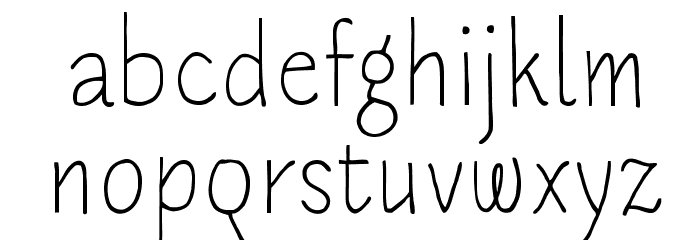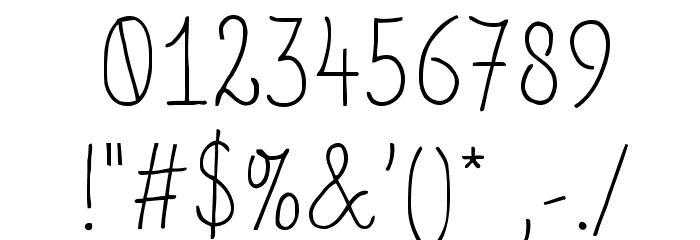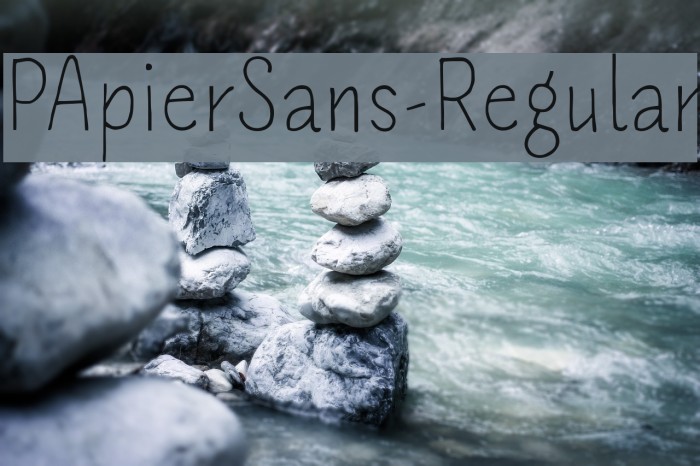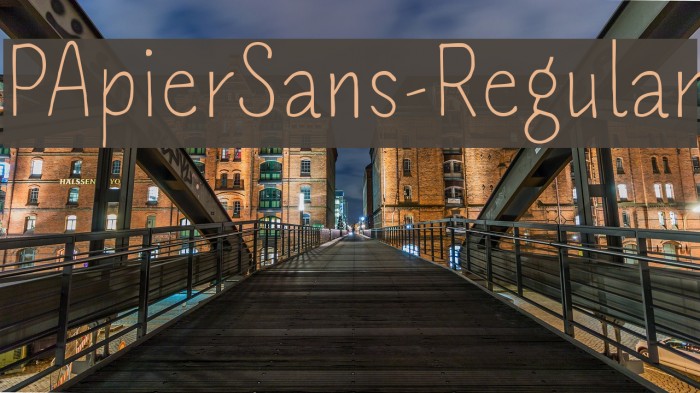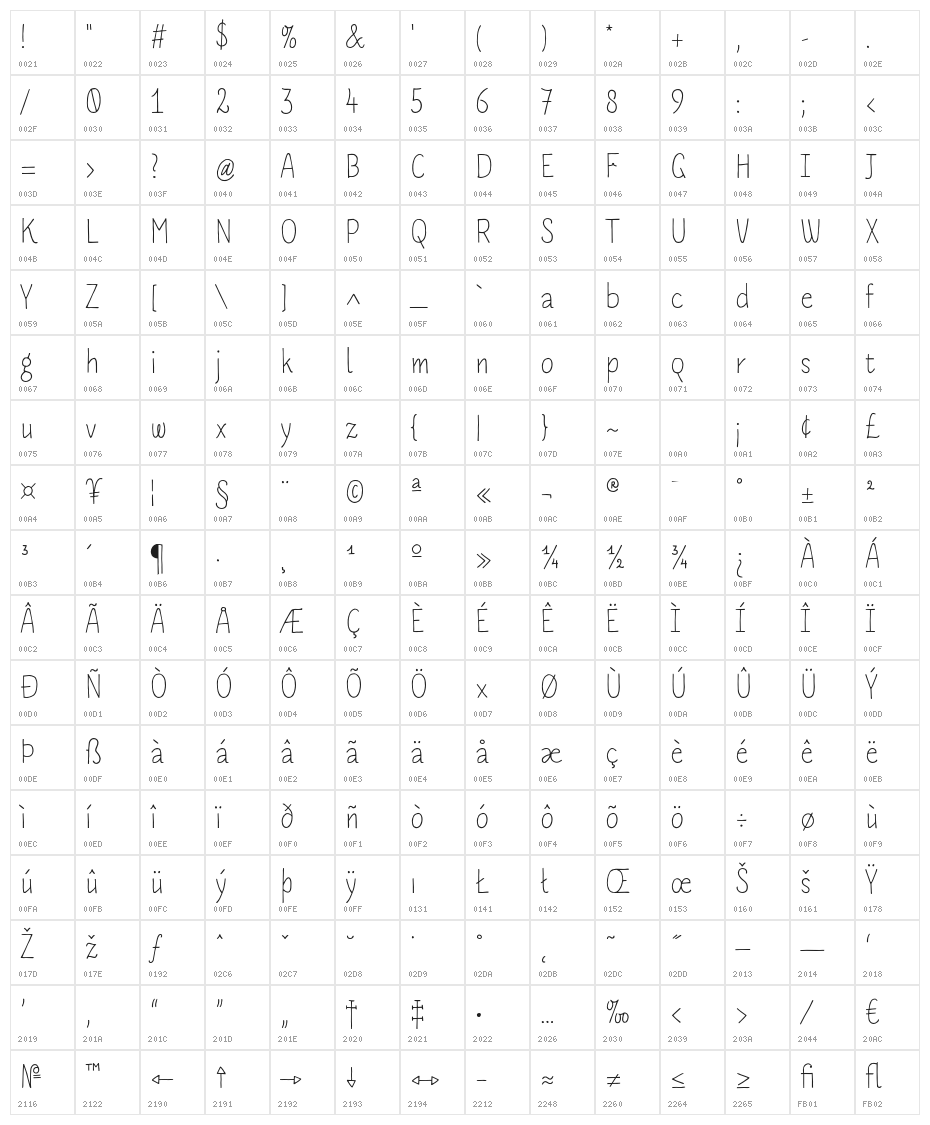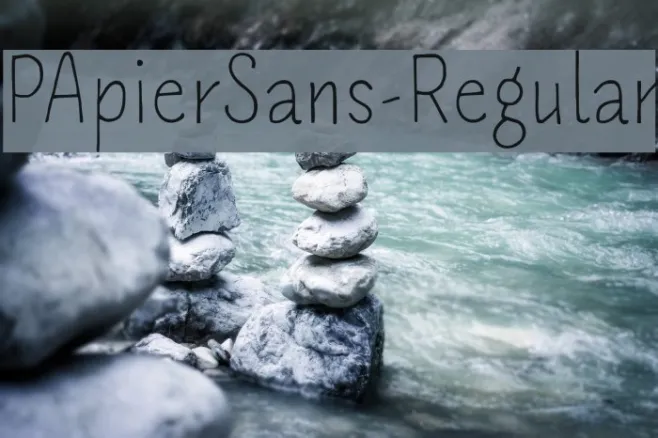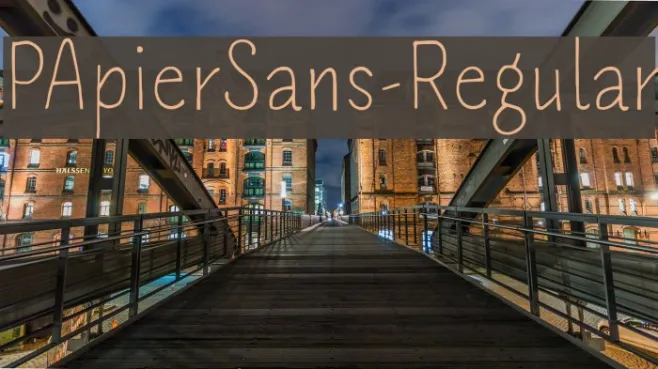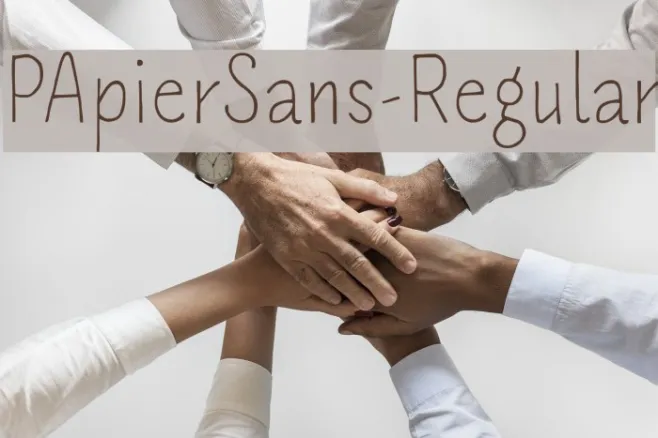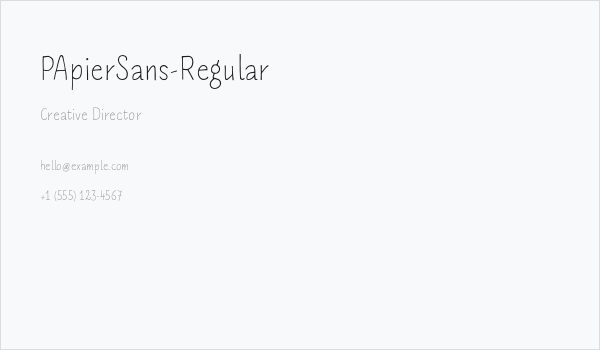
PApierSans-Regular Font
This font features a playful and informal handwritten style, characterized by its irregular strokes and slightly uneven baseline. The letters have a whimsical quality, with a mix of straight and curved lines that give it a casual and friendly appearance. The uppercase letters are tall and narrow, while the lowercase letters maintain a consistent height with rounded forms. The numerals are distinct and easy to read, matching the overall playful aesthetic. Special characters are included, maintaining the same quirky style. This font is suitable for projects that require a personal touch and a sense of approachability.
A playful, handwritten font with irregular strokes and a casual style.
- Proposed Projects: Ideal for greeting cards, children's books, personal blogs, and informal branding.
- Category: Handwritten
- Overall Style: Casual
- Use Case: Headlines, Informal text, Creative projects